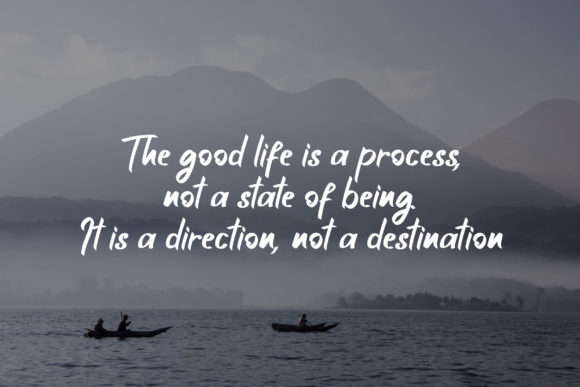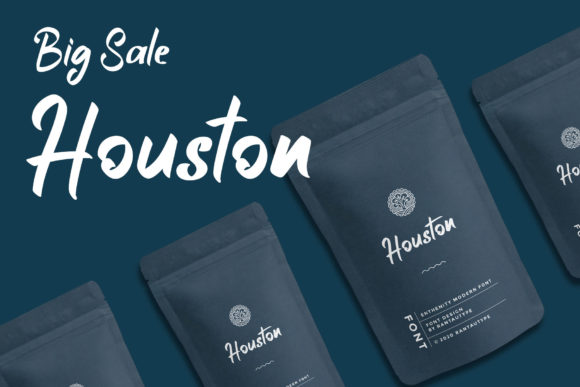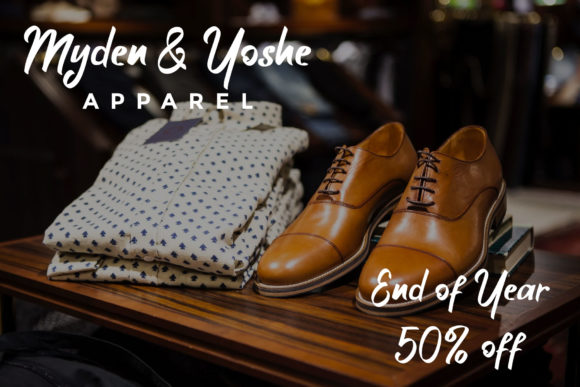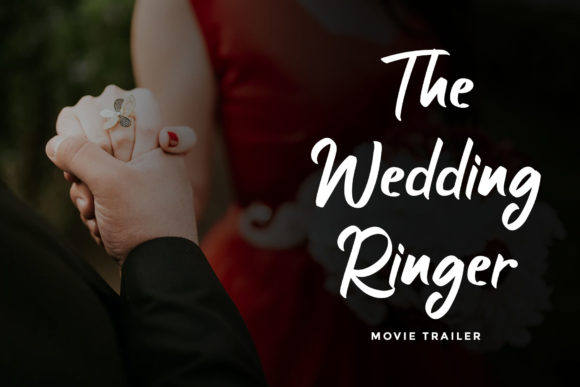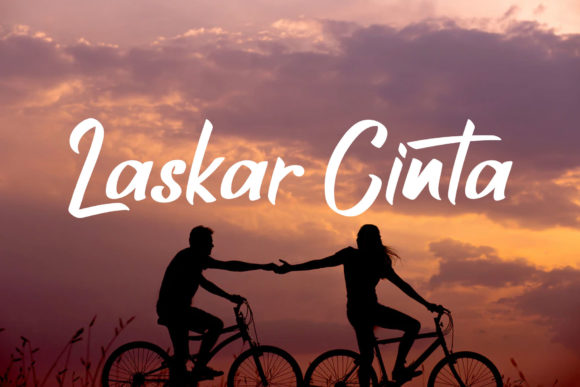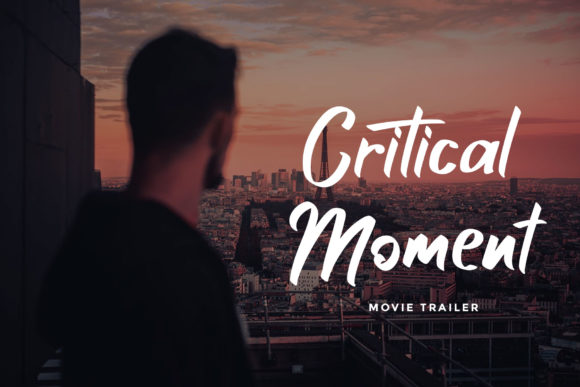
Introduction to Enthernity Font
Have you ever been stuck in a creative rut, staring at a blank canvas with no inspiration in sight? That’s when the perfect font can make all the difference. For designers, the right font can breathe life into a project, elevating it from bland to grand. And that’s exactly what the Enthernity Font does – it adds a touch of sophistication and elegance to any design, making it a valuable asset for creatives.
With its modern and clean display style, the Enthernity Font is a game-changer for designers. Whether you’re working on a high-quality graphic design project or need a free download for a personal creative endeavor, this font is sure to impress. Its versatility and neat vibe make it perfect for a wide range of design applications, from social media graphics to website headers.
Key Features of Enthernity Font
- High-quality design: Enthernity Font is designed to provide a unique and creative look for your projects, making it an excellent choice for designers and artists.
Honest Review: Enthernity Font
I recently stumbled upon the Enthernity Font while searching for a unique design resource to elevate my creative project. The font immediately caught my eye with its sleek, modern aesthetic and high quality design.
What works well with the Enthernity Font is its versatility – it’s perfect for both digital and print designs. I love how it can add a touch of sophistication to any project. The font is also available for free download, making it an excellent choice for designers on a budget. ✨
One of the standout features of the Enthernity Font is its transparent background, which makes it easy to use on various backgrounds and designs. This is especially useful for designers who want to create a cohesive look without worrying about font colors clashing.
However, I did notice that the font may not be suitable for all design projects. For instance, its modern design might not be the best fit for more traditional or vintage-themed projects. Additionally, the font may require some adjustments to achieve the perfect balance with other design elements. ⚠️
Overall, I’m impressed with the Enthernity Font and would definitely recommend it to designers looking for a high-quality, free design resource. Its unique design and versatility make it an excellent addition to any design toolbox.
- Unique, modern design
- High quality font
- Perfect for digital and print designs